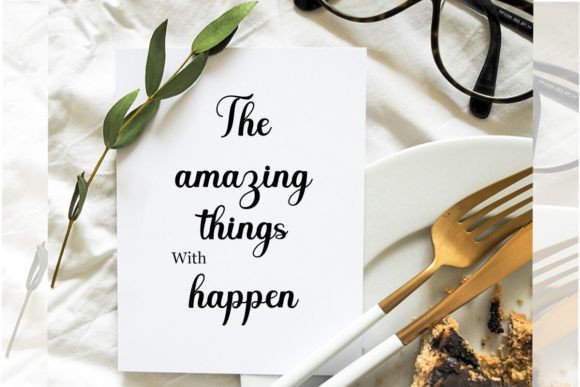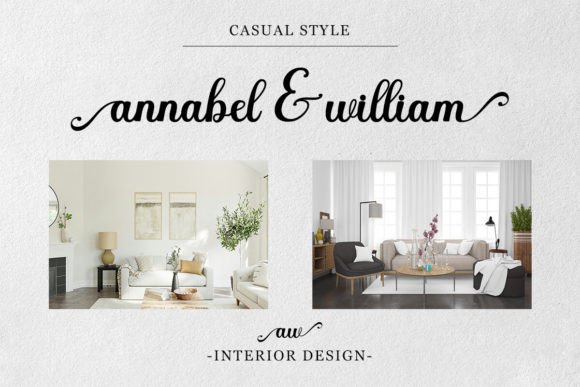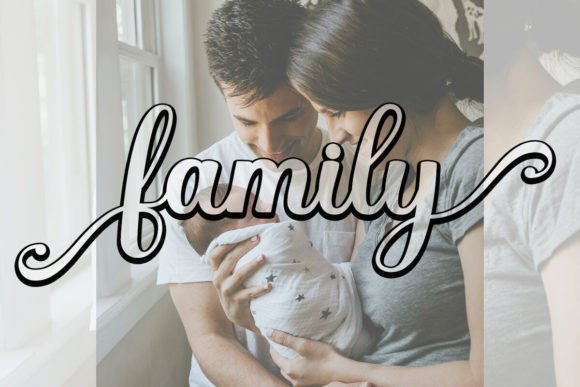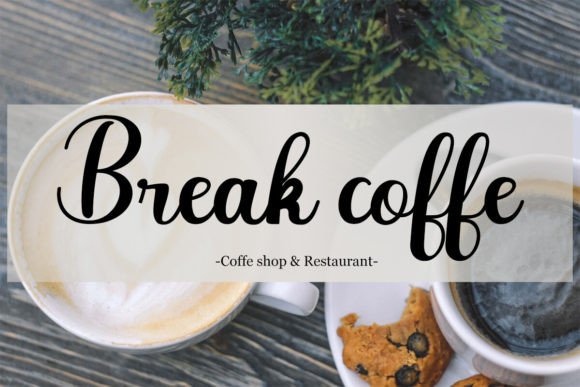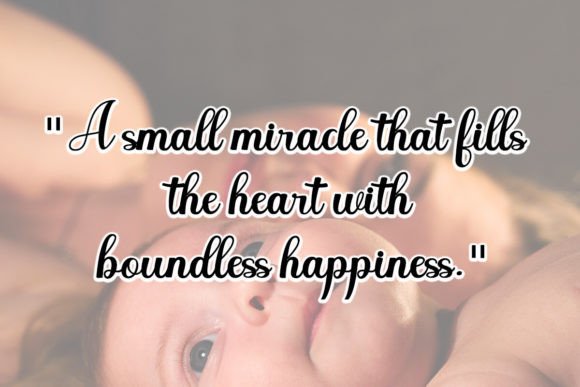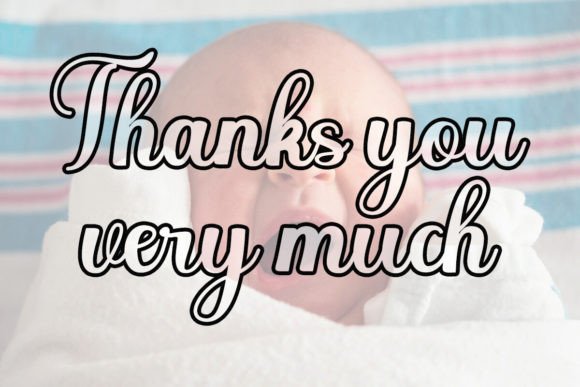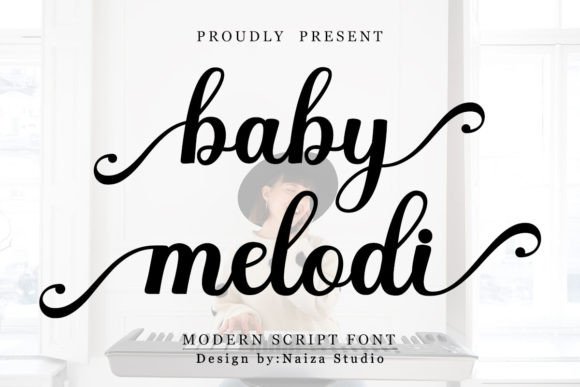
Baby Melodi Font: Elevate Your Designs with Modern Calligraphy
Are you a designer or crafter looking for a beautiful and versatile font to elevate your creative projects? Look no further than the Baby Melodi Font, a stunning modern calligraphy design that is sure to impress. With its casual yet elegant style, this font is perfect for a wide range of applications, from logos and product packaging to wedding invitations and branding.
What is Baby Melodi Font?
Baby Melodi Script is a modern calligraphy design that features a Regular style, complete with gorgeous swashes. This font is carefully crafted to provide a unique and sophisticated look that will make your designs stand out. Whether you’re creating a logo, designing a book cover, or crafting a wedding invitation, Baby Melodi Font is the perfect choice.
Key Features of Baby Melodi Font
- Modern Calligraphy Design: Baby Melodi Script boasts a beautiful, modern calligraphy design that is both elegant and sophisticated.
- Regular Style: This font features a regular style with gorgeous swashes, perfect for adding a touch of elegance to your designs.
- Casual and Beautiful: With its casual yet beautiful style, Baby Melodi Font is perfect for a wide range of creative projects.
Use Baby Melodi Font for a Variety of Projects
Baby Melodi Script is an incredibly versatile font that can be used for a wide range of creative projects, including:
- Logos: Create a stunning logo for your business or brand with Baby Melodi Font.
- Product Packaging: Add a touch of elegance to your product packaging with this beautiful font.
- Wedding Invitations: Make your wedding invitations truly special with Baby Melodi Script.
- Branding: Establish your brand identity with a unique and sophisticated font.
- Headlines: Create eye-catching headlines for your blog, website, or social media channels.
- Signage: Use Baby Melodi Font to create stunning signage for your business or event.
- Labels: Add a touch of elegance to your product labels or packaging.
- Signatures: Create a beautiful signature for your emails or documents.
- Book Covers: Design a stunning book cover with Baby Melodi Script.
- Posters: Create eye-catching posters for your business, event, or promotion.
- Quotes: Add a touch of elegance to your quotes or inspirational messages.